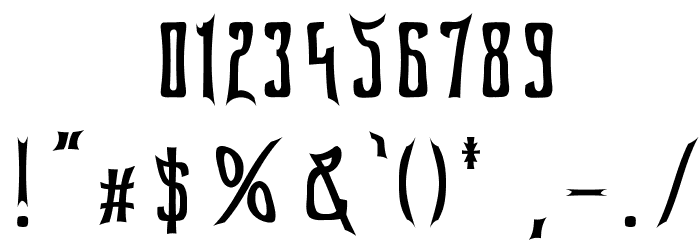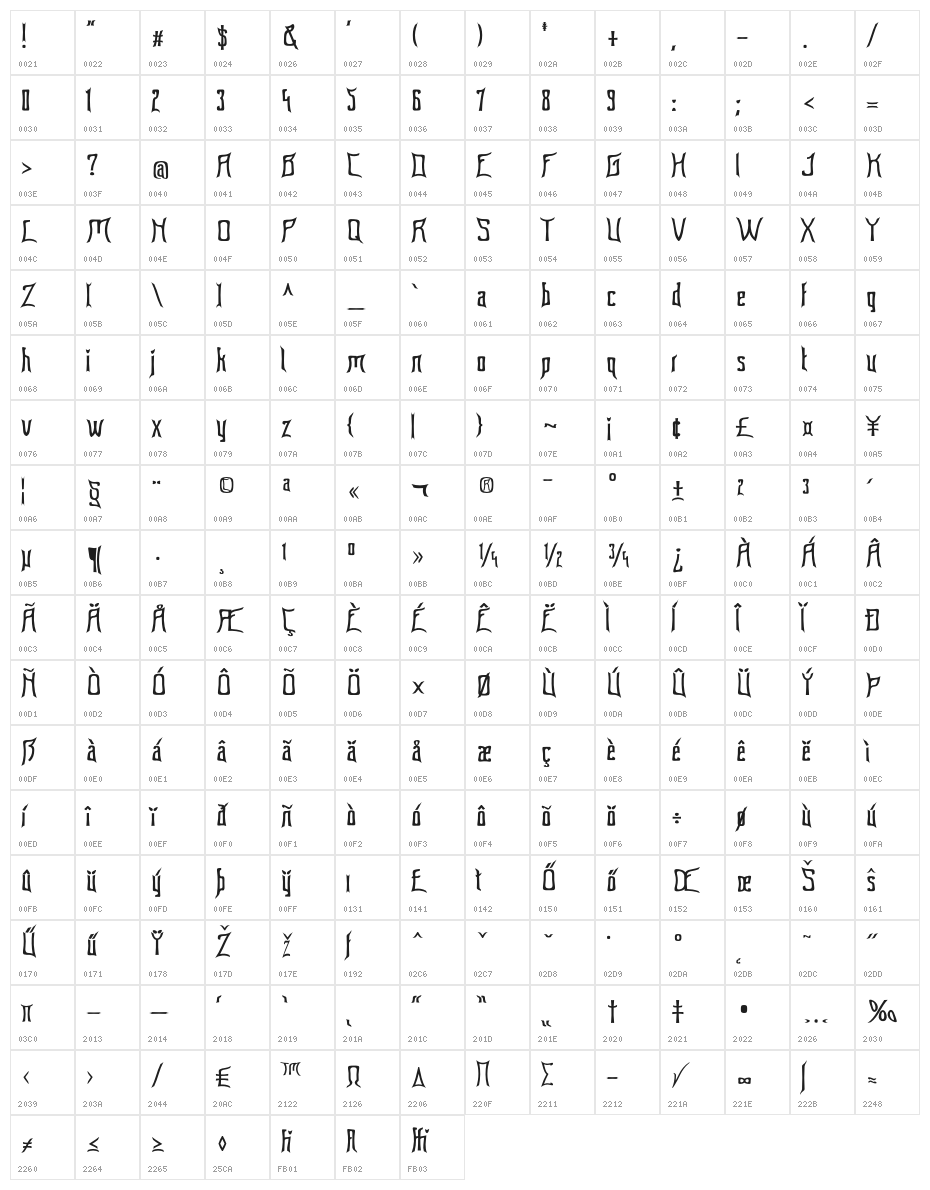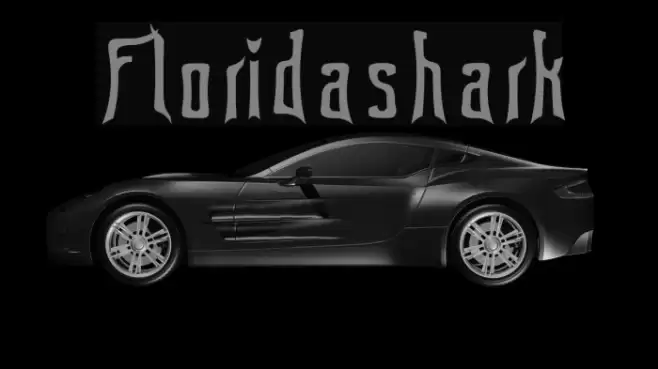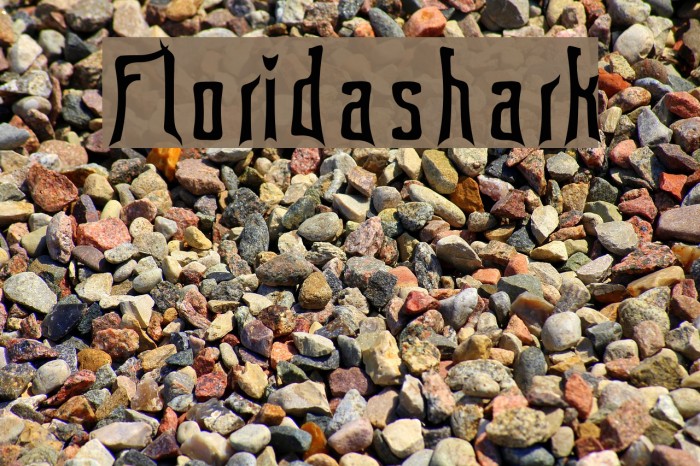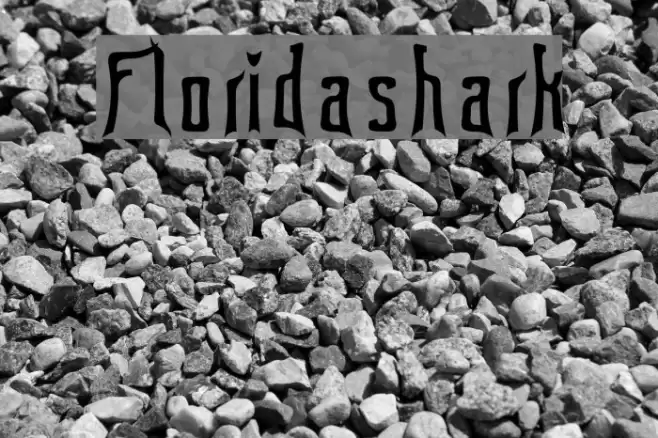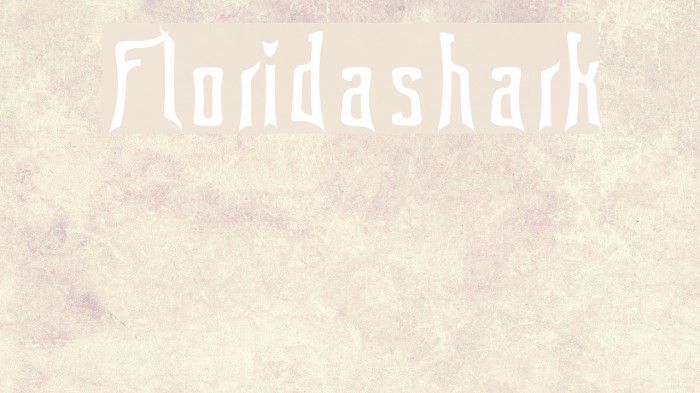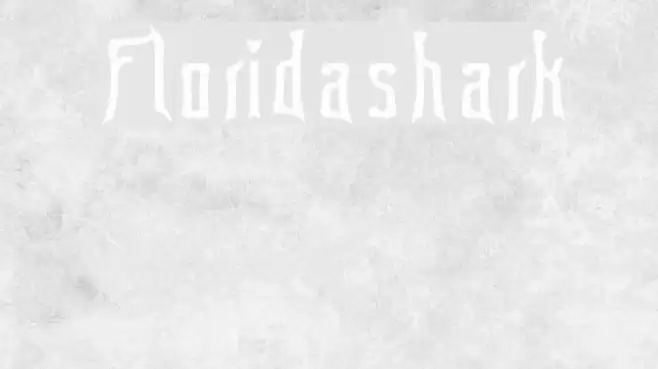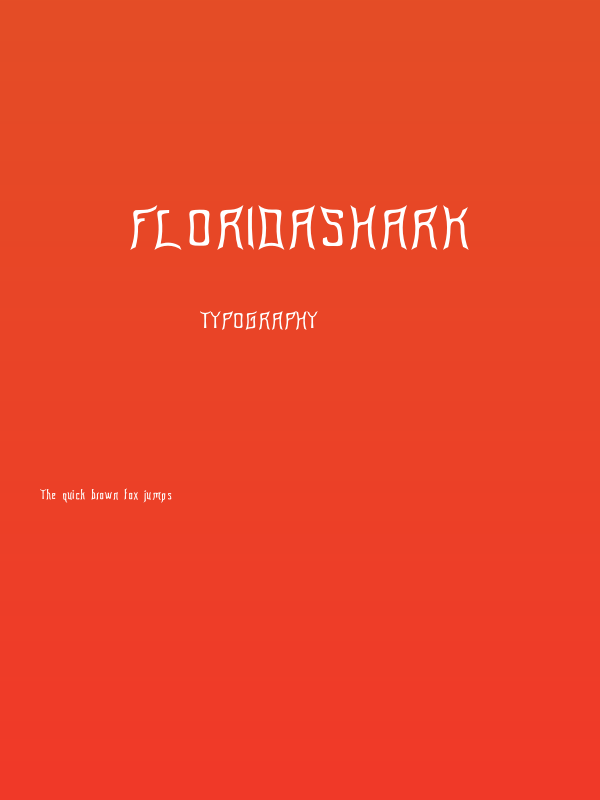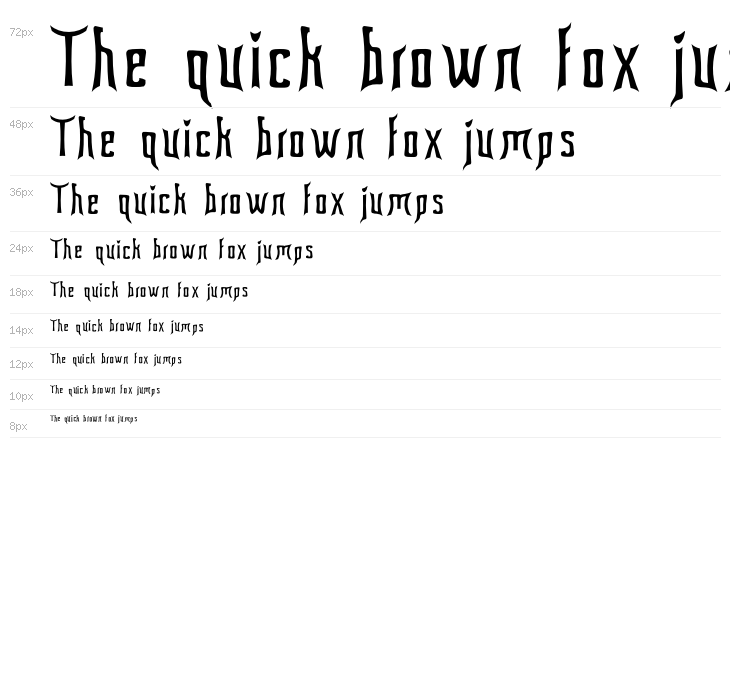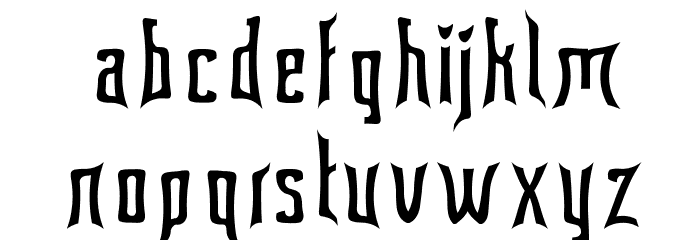
Floridashark Font
Floridashark Description
This font features a unique and bold design with sharp, angular edges and a slightly gothic influence. The uppercase letters are tall and narrow, with distinct pointed serifs that give them a dramatic flair. The lowercase letters maintain a consistent style, offering a cohesive look throughout. Numbers and special characters are designed to match the overall aesthetic, making them suitable for various creative applications. The font's distinct style makes it ideal for projects that require a strong visual impact.
| Overall Style | Gothic, Decorative |
| Proposed Projects | Ideal for posters, album covers, branding, and any project requiring a bold, dramatic typeface. |